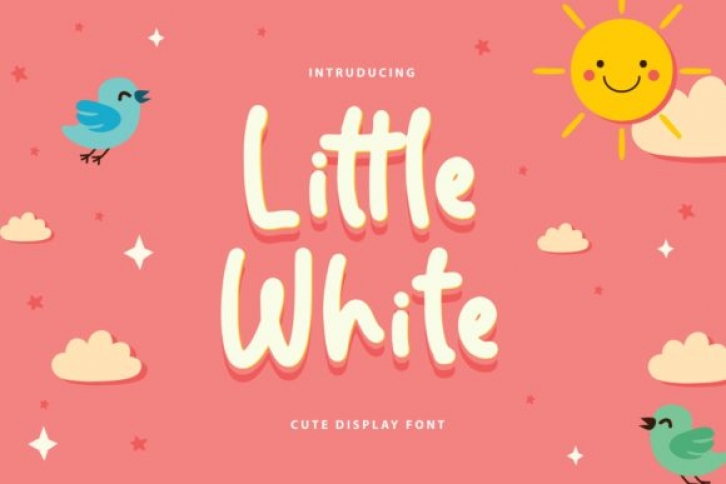
Little White is a fun and cute display font. It will elevate a wide range of design projects to the highest levels, be it branding, headings, wedding designs, invitations, signatures, logos, labels, and much more!